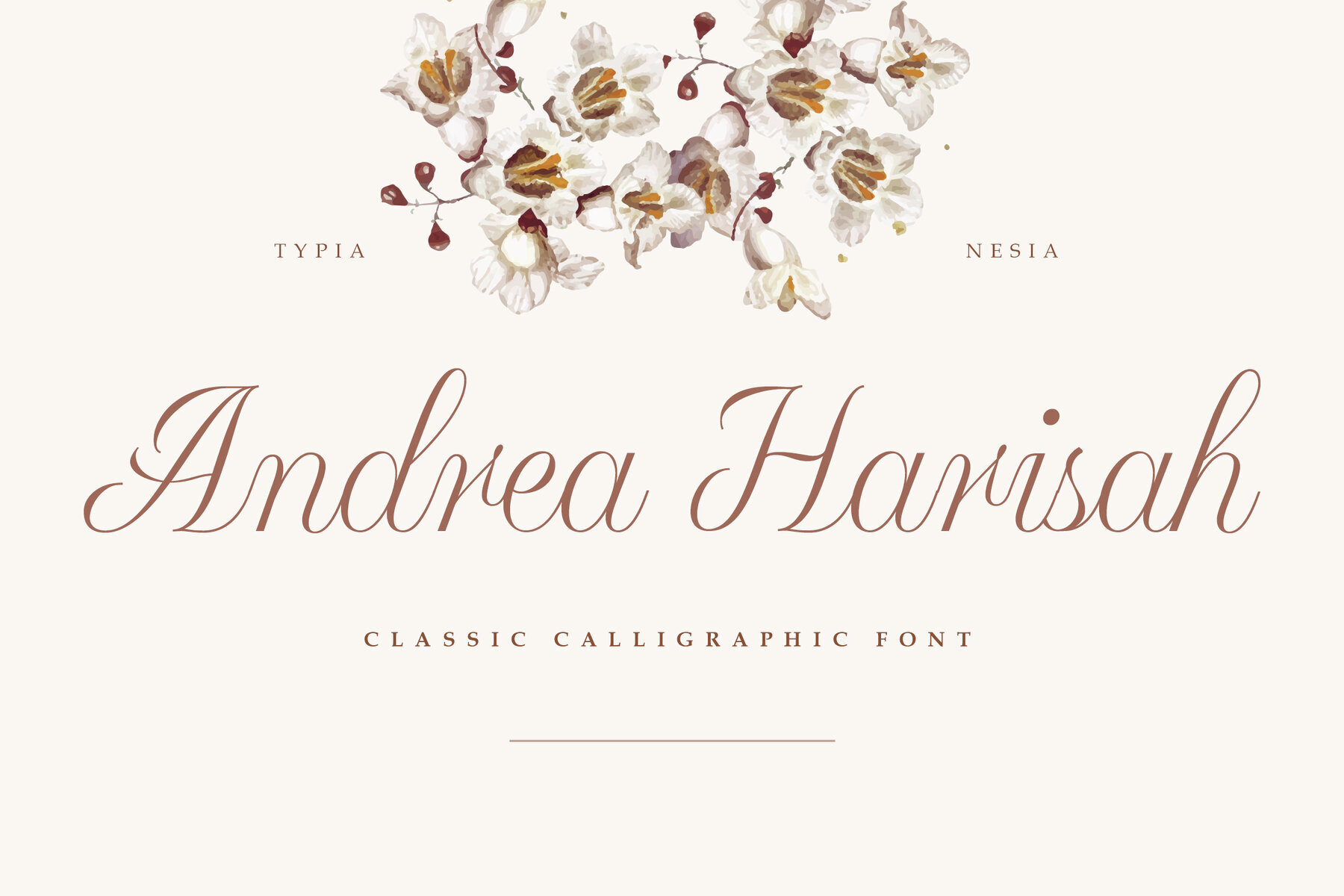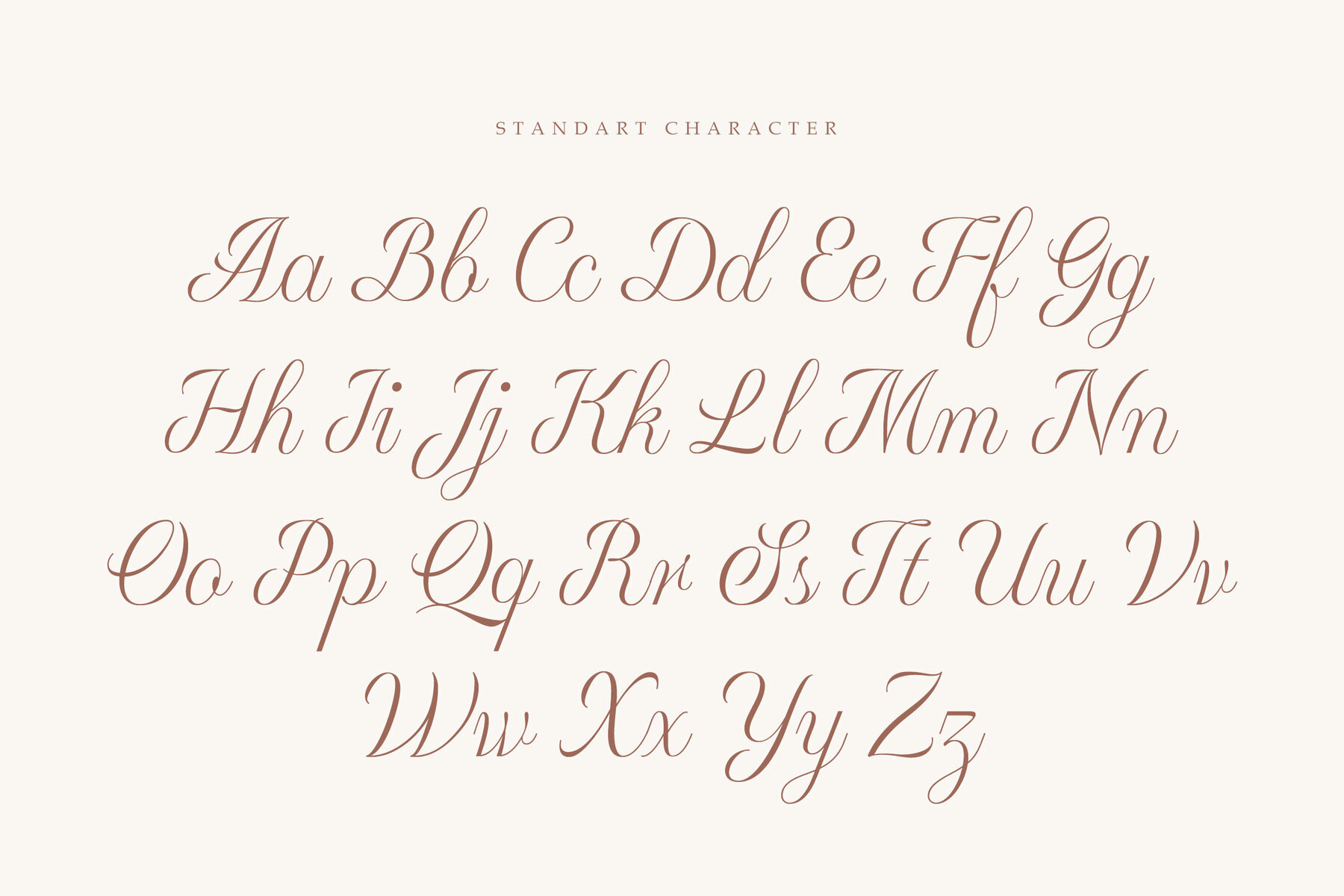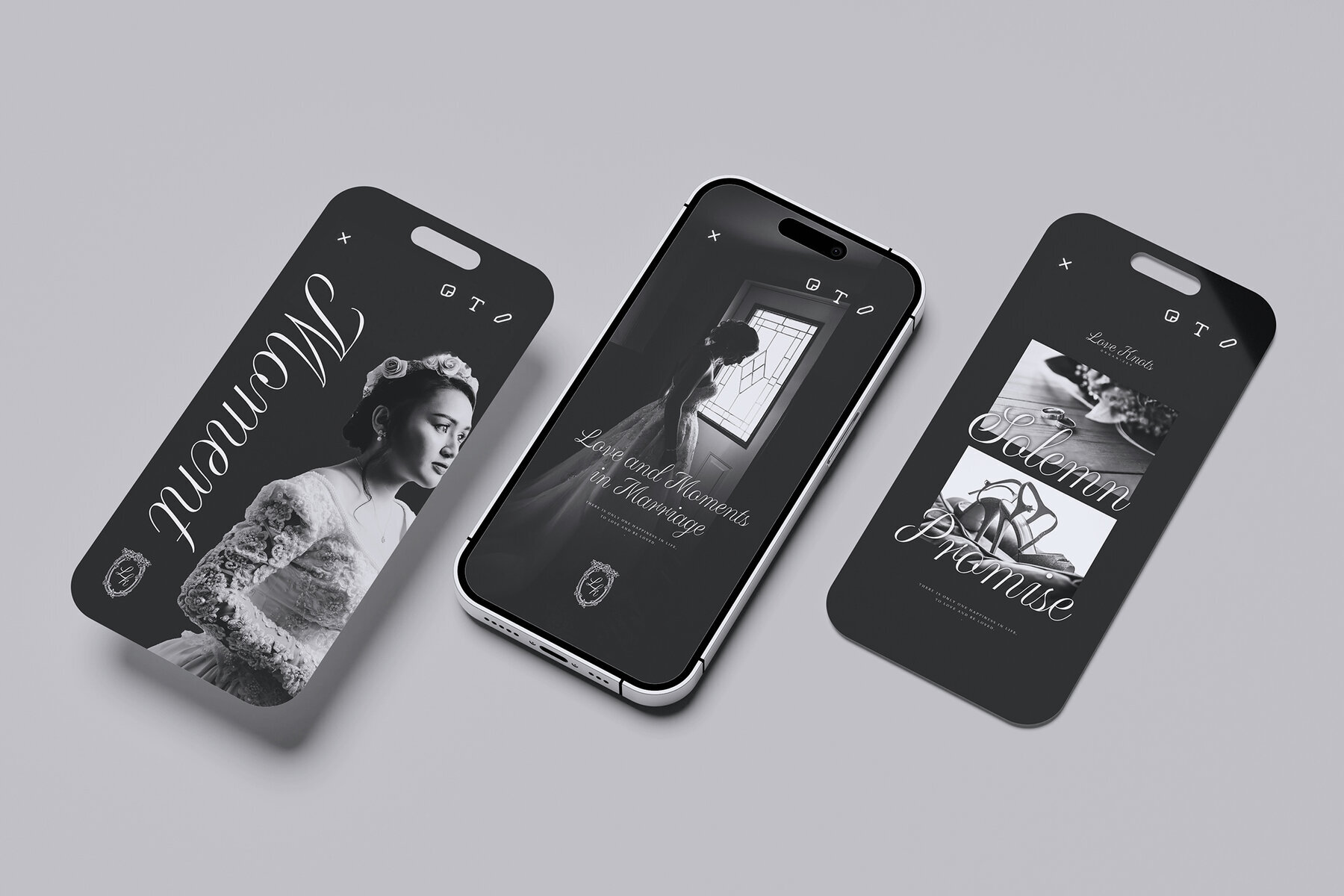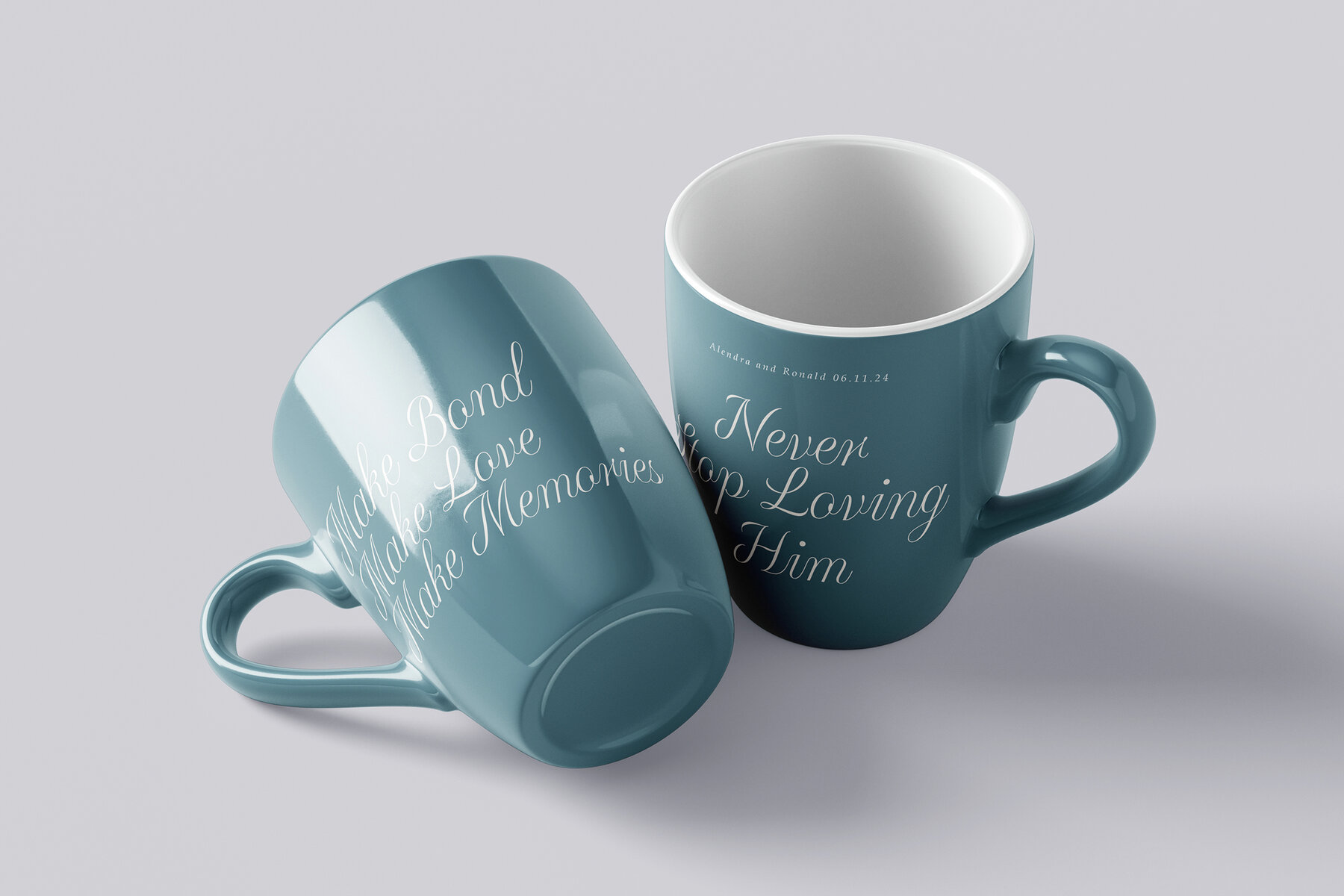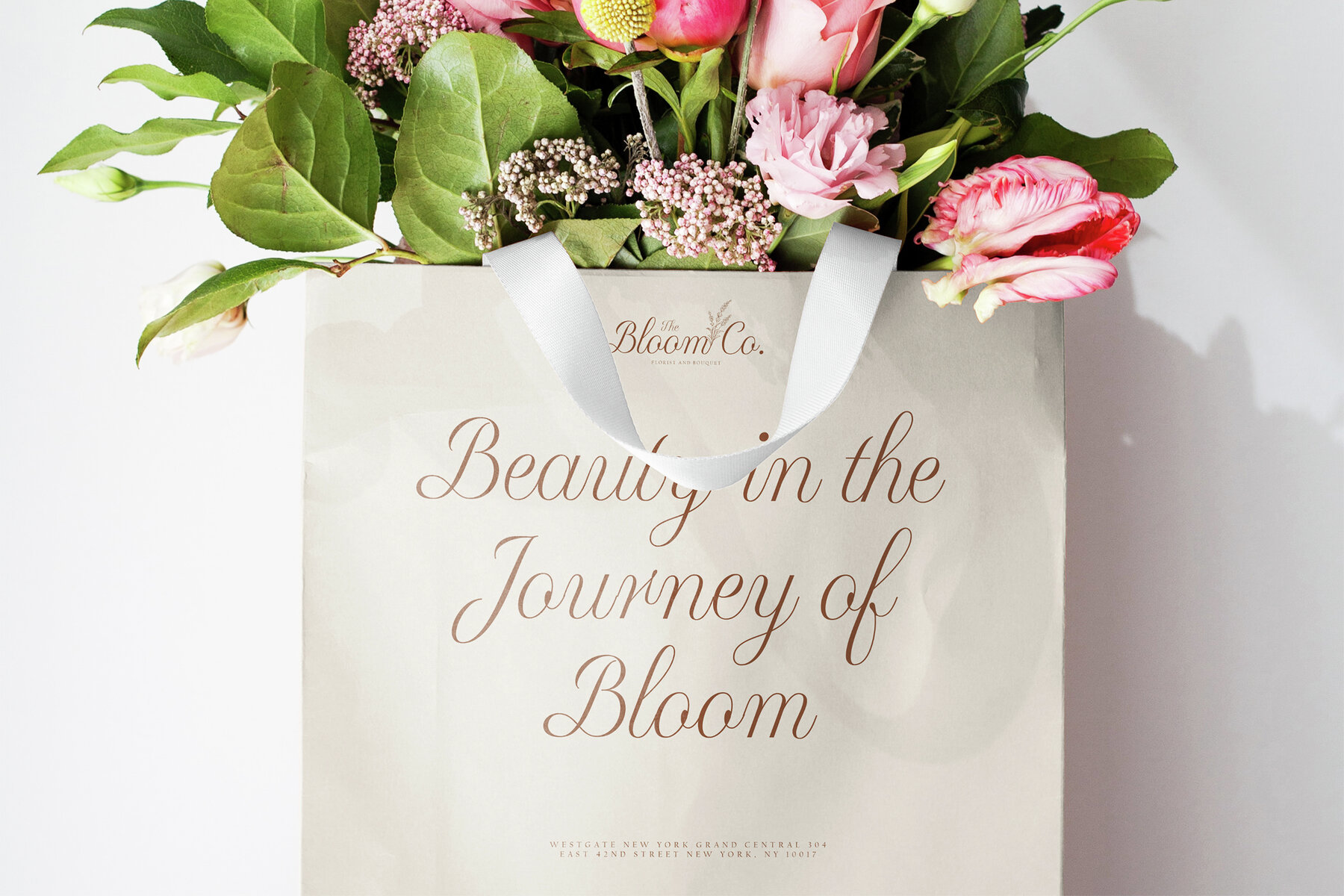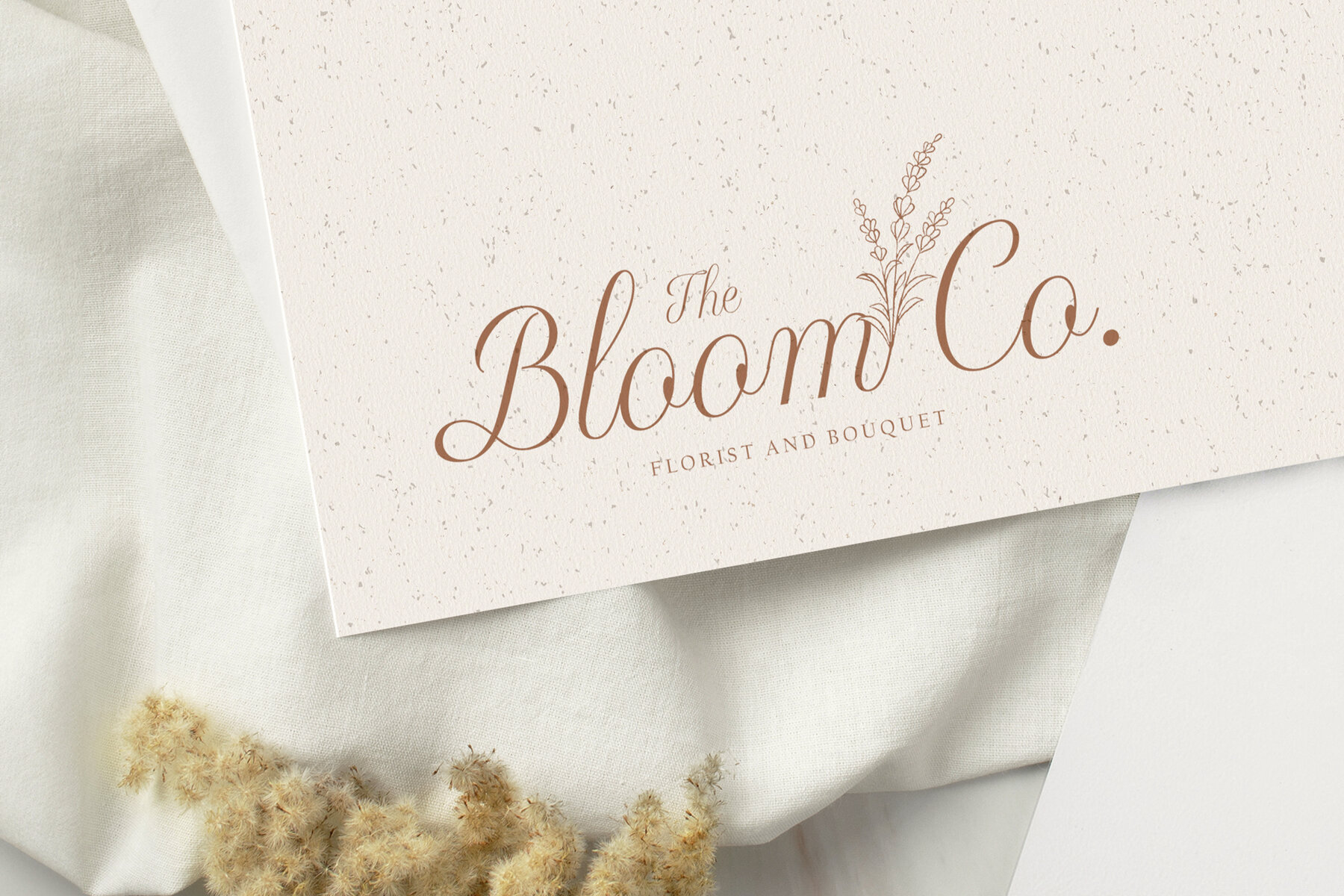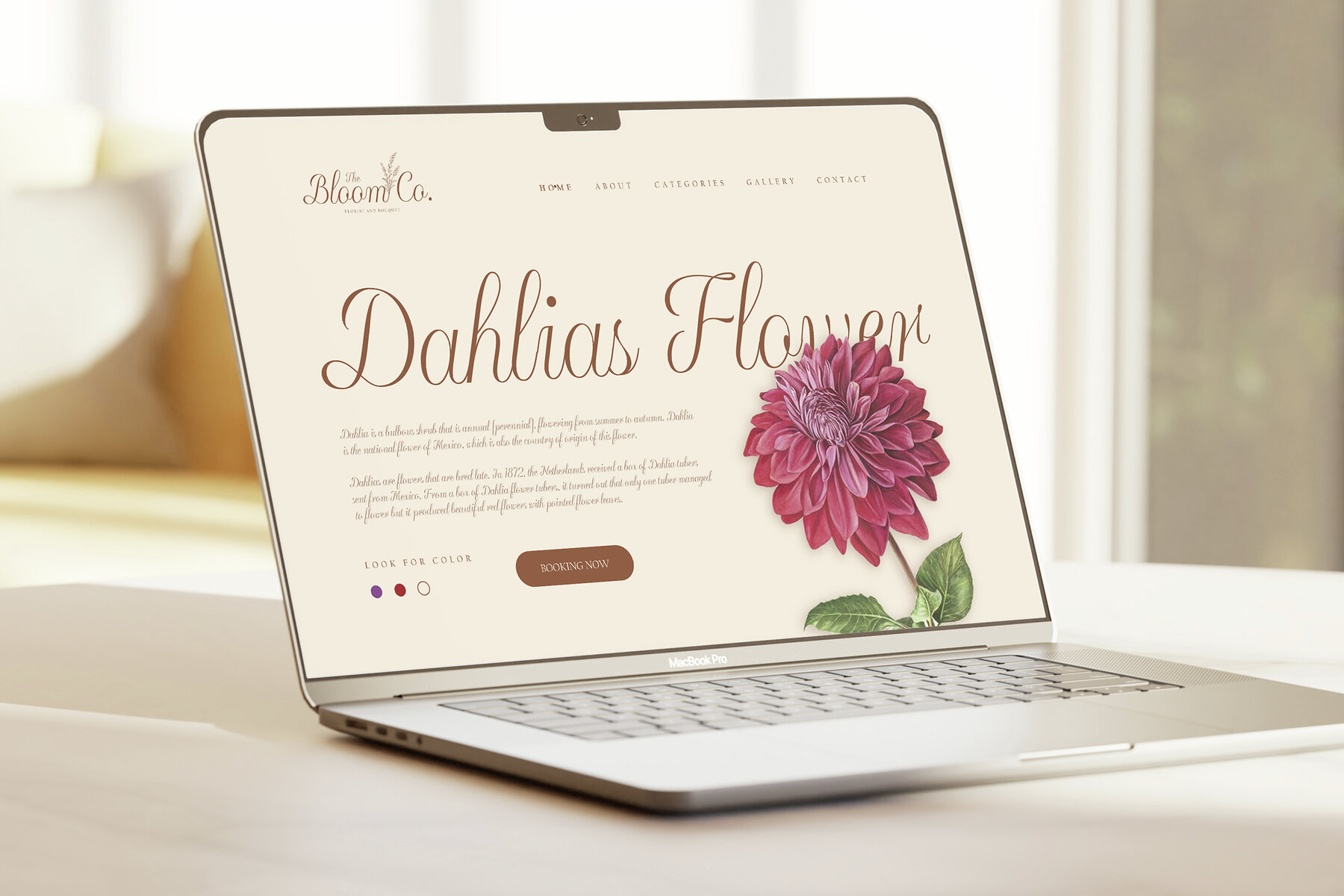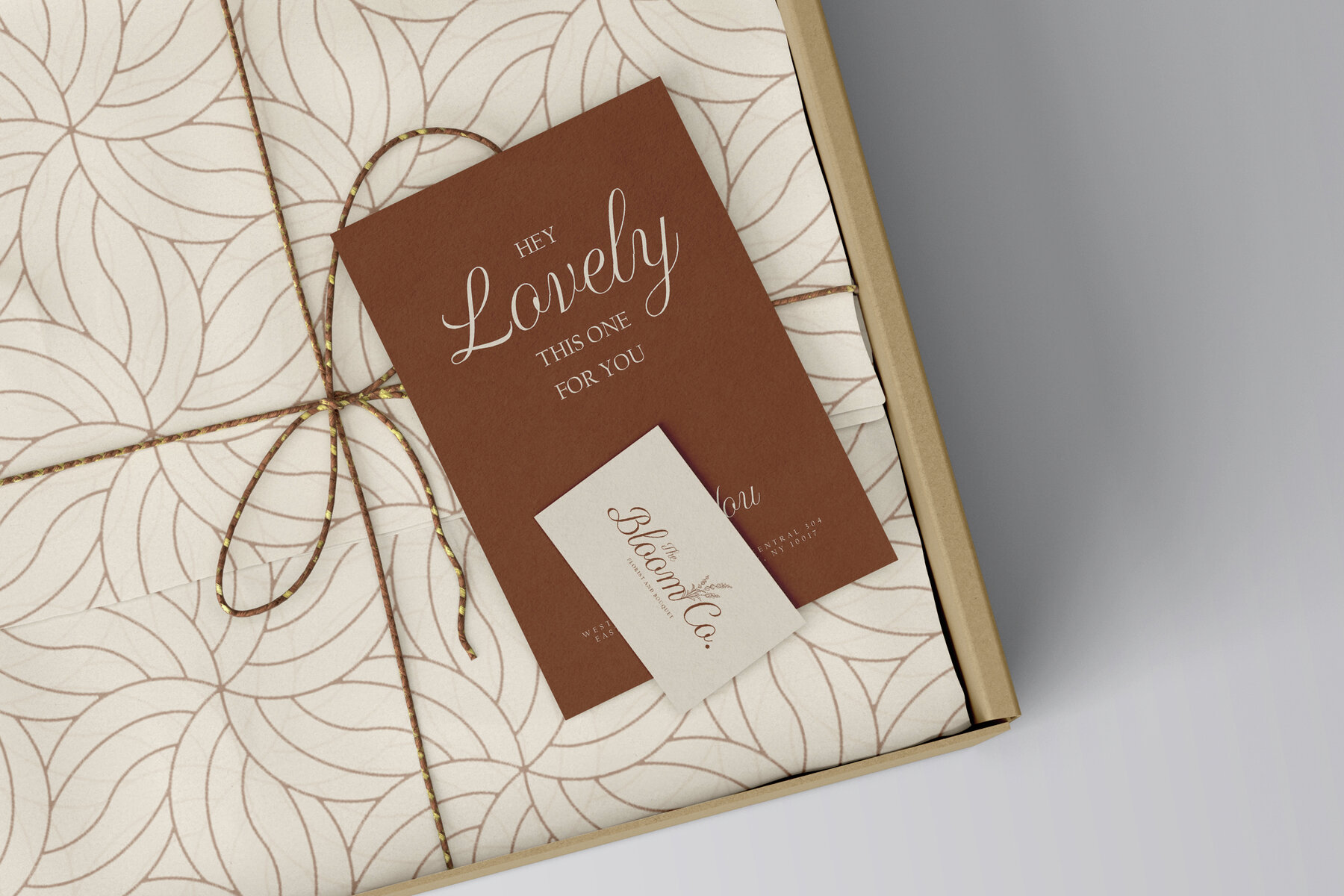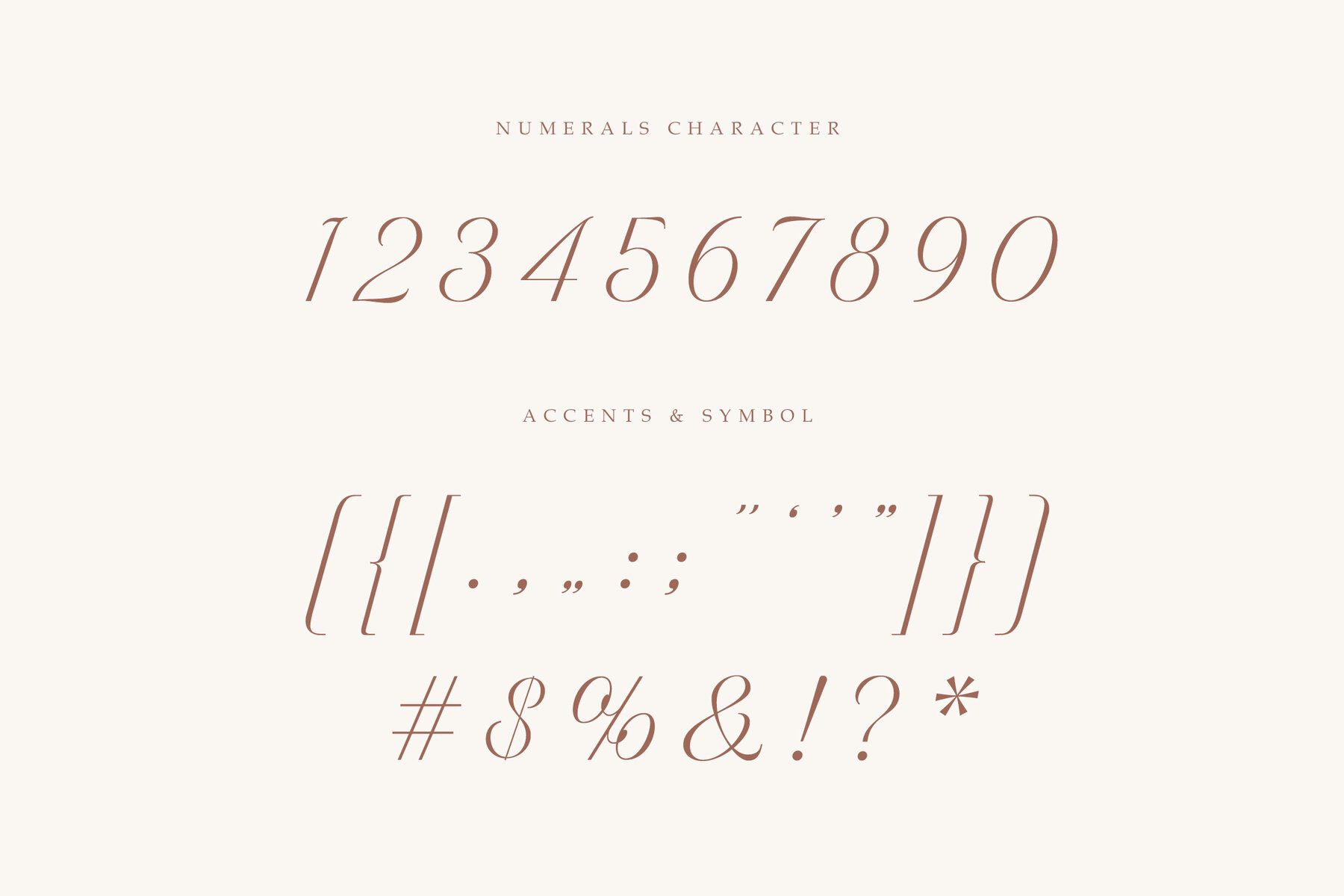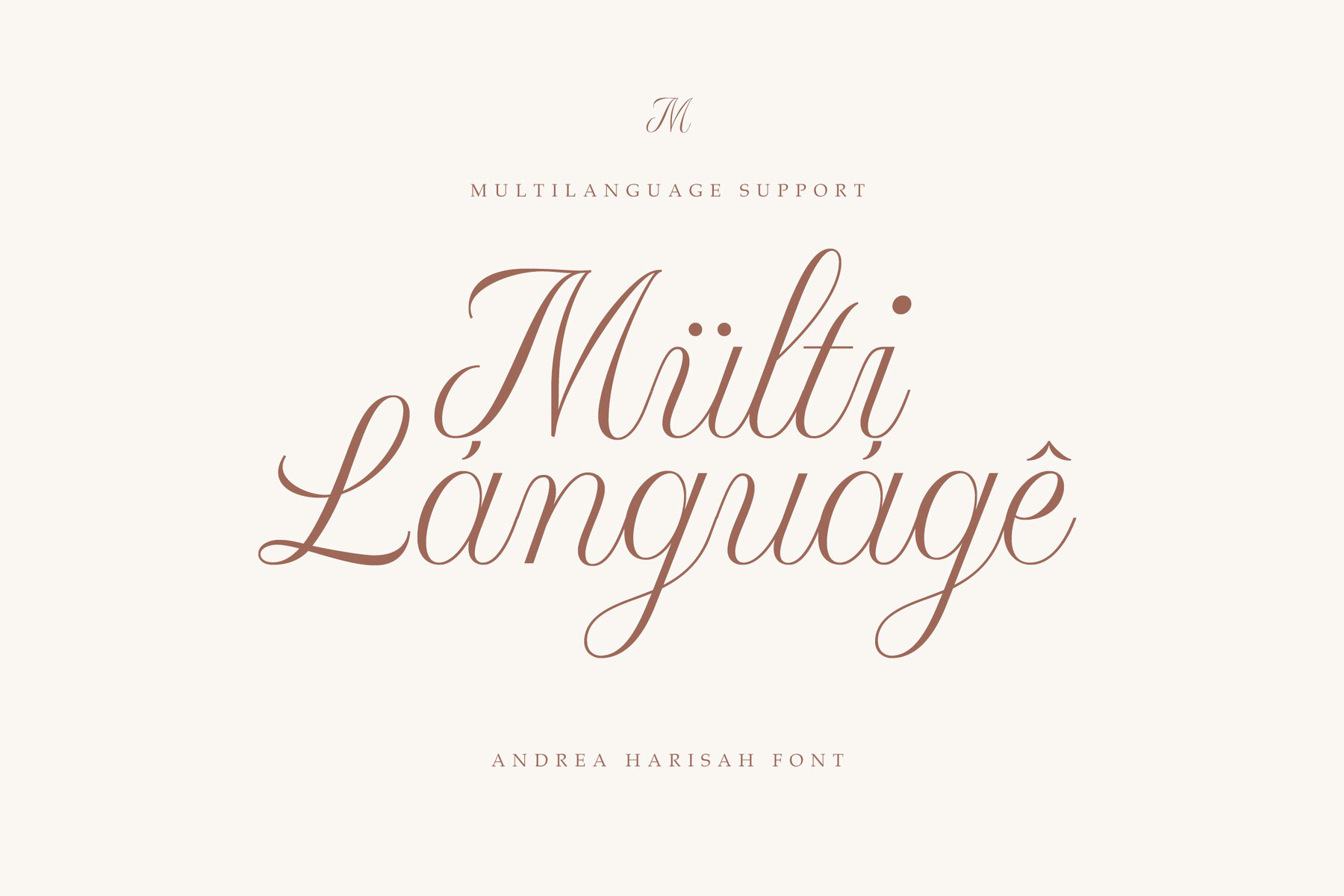
Andrea Harisah Font
Andrea Harisah Italic
Andrea Harisah - Classic Calligraphic Font - Elegant Beauty Luxury Aesthetic Script Font. Andrea Harisah is a Classic Calligraphic Font that radiates elegance and Beauty charm. Its flowing, hand-drawn strokes and Aesthetic design make it the perfect choice for projects that require a touch of classic beauty to any project. Ideal for wedding invitations, branding, greeting cards, editorial design, luxury packaging, certificates and diplomas, use the font for designing certificates of achievement, diplomas, and awards, providing a formal and classic appearance. Enhance Your Designs with the Classic Beauty of Andrea Harisah, Download Now! Thank You. Typia Nesia Std.
You can also apply this font for marketing materials, custom art and decor, and any project for adds a graceful and beauty look to any text. Its versatility ensures it performs beautifully in both print and digital media, enhancing logos, headlines, and body text with its classic style. Comes with a comprehensive set of features to support your creative project. It includes ligatures for smooth and natural character combinations, as well as a full set of uppercase and lowercase letters, punctuation, numerals, and alternate characters. Additionally, it provides extensive multilingual support, making it suitable for diverse linguistic contexts. Designed with precision and an appreciation for classic calligraphy, Andrea Harisah combines traditional elegance with modern functionality. Its meticulously crafted characters ensure both aesthetic appeal and readability, making it a reliable choice for designers seeking to elevate their work with beauty charm.